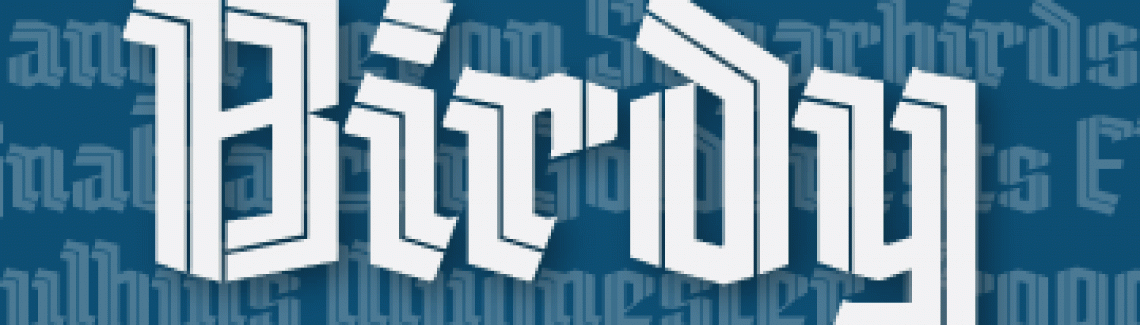
Birdy
A contemporary take on blackletter, inspired by a beer label lettering in Iceland.
Birdy was especially created during the Graphic Design Walk as part of the London Design Festival.The event was organised by the team of GraphicBirdWatching who invited TypeTogether to participate. Veronika was drawing live this new typeface, Birdy, conceived there and then. A projector allowed visitors to follow her drawing letters and gave opportunity to ask questions directly about the design process. Birdy is now available for free to download. The character set is limited to upper- and lowercase a some basic punctuation. An extension is in progress.
Birdy has been exhibited at the recent Blacklecker exhibition in Berlin at Mota Italic.